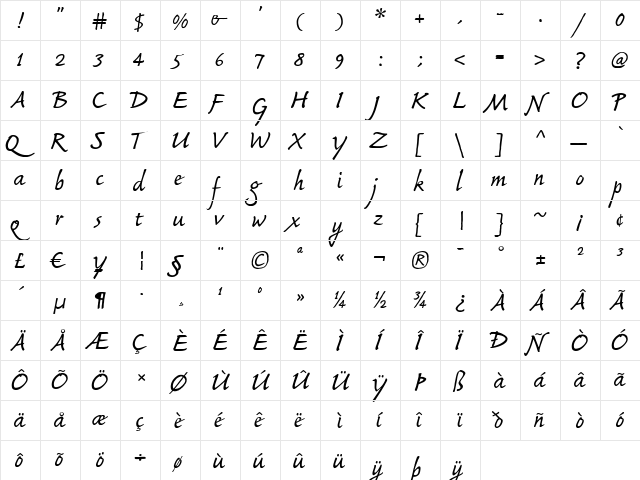
Bouwsma Script Regular
| Foundry | Philip Bouwsma |
| Designer | Philip Bouwsma |
Design Context for Bouwsma Script Typeface
Bouwsma Script flows with the natural rhythm of handwritten lettering, making it ideal for designs that call for warmth and personal expression.
Font Pairing: Combine Bouwsma Script with a simple geometric sans for maximum contrast — the tension between flowing curves and clean structure is a classic typographic pairing.
Pro Tip: Use Bouwsma Script for short runs of text — names, titles, or taglines. Extended body copy in script faces tires the eye quickly.